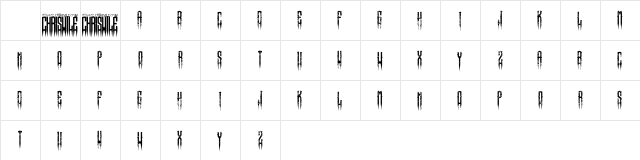
Complete XSpiked Regular glyph index. Displaying only characters natively supported by XSpiked Regular font.
XSpiked is a composed and adaptable typeface that performs quietly and consistently across a wide range of design contexts.